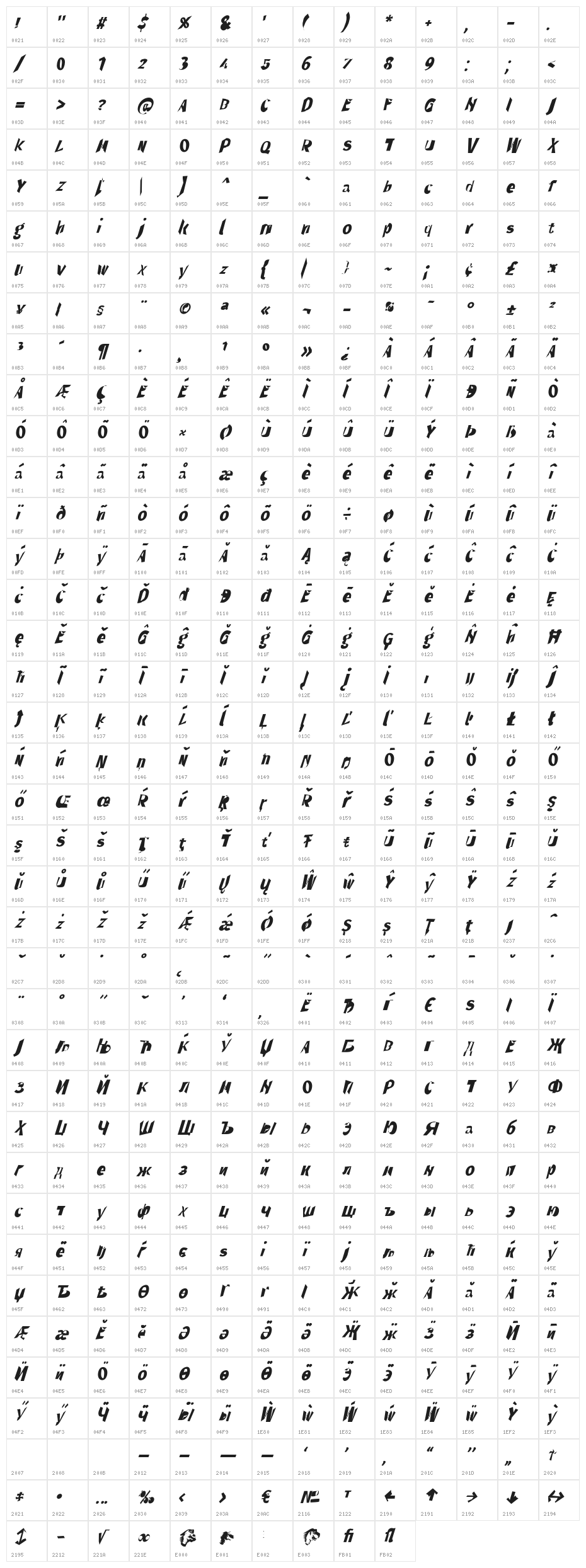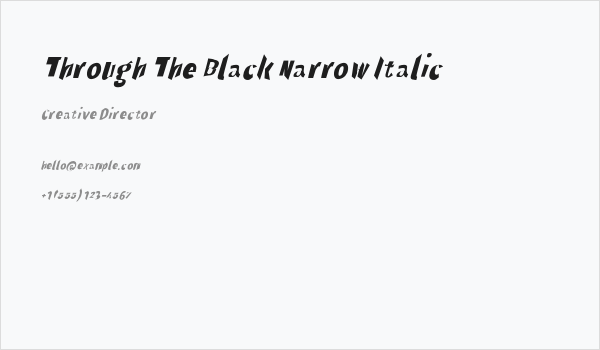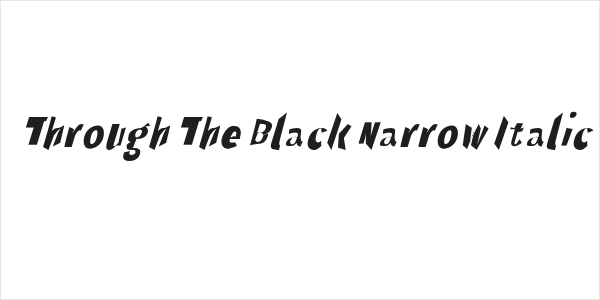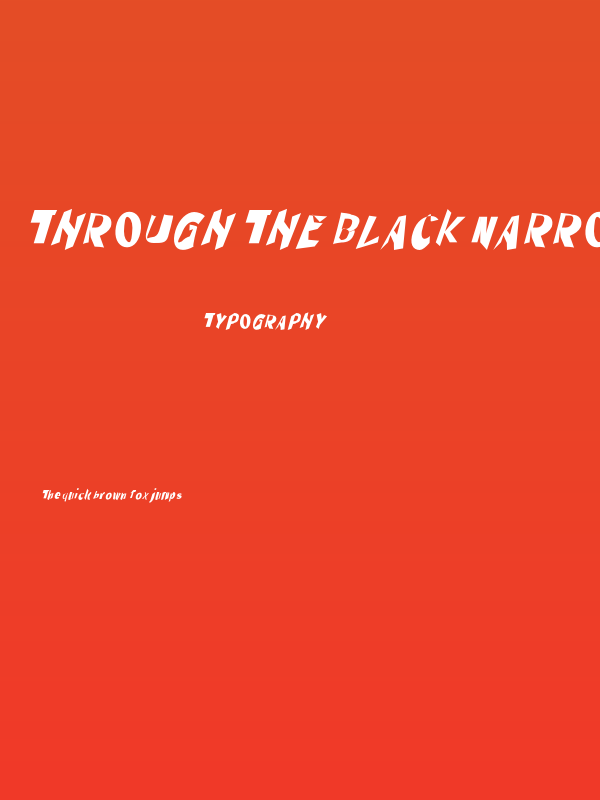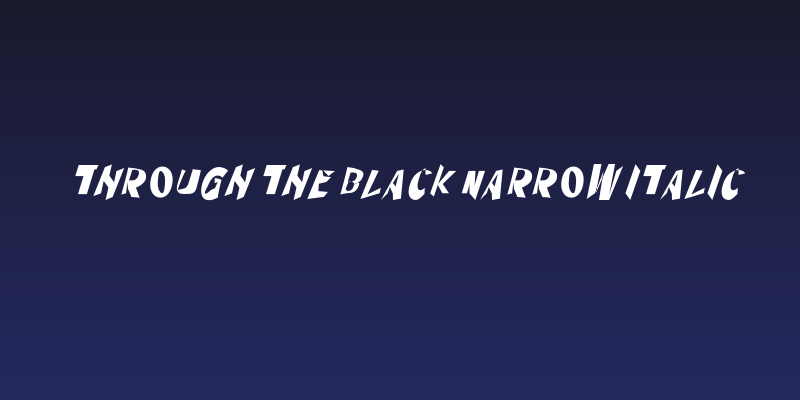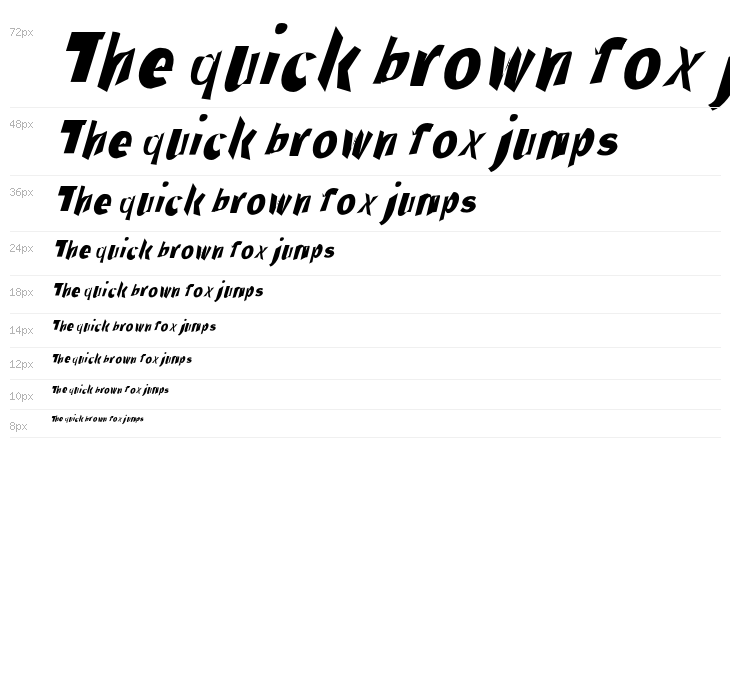
Through The Black Narrow Italic Font
Through The Black Narrow Italic Description
This font exhibits a bold and dynamic style with a strong italic slant, giving it a sense of movement and urgency. The characters are narrow, enhancing the compact and sleek appearance. The strokes are thick and consistent, providing a high contrast that makes each letter stand out distinctly. The angular and sharp edges contribute to a modern and edgy aesthetic, making it suitable for attention-grabbing designs. The uppercase and lowercase letters maintain a cohesive look, while the numerals and special characters are designed to match the overall style seamlessly.